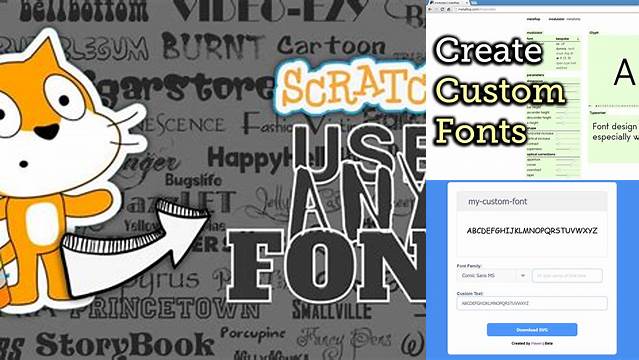
Custom Fonts In Scratch: A Complete Guide
So, you want to use custom fonts in Scratch, huh? Well, buckle up, because while Scratch doesn't officially support custom fonts in the traditional sense, there are some super cool workarounds to get your projects looking exactly how you want. Let's dive into the methods you can use to add that extra flair to your Scratch creations!
Why Use Custom Fonts in Scratch?
Before we get started, let's talk about why you might want to use custom fonts in the first place. The default font in Scratch is pretty basic, and while it's functional, it might not always fit the aesthetic you're going for. Custom fonts can add personality, style, and a unique touch to your projects. Whether you're creating a retro game, a modern animation, or an educational tool, the right font can make all the difference.
Custom fonts can significantly enhance the visual appeal of your Scratch projects. Imagine creating a space-themed game with a futuristic font or a fantasy story with an elegant, medieval-style typeface. The possibilities are endless! By using custom fonts, you can create a more immersive and engaging experience for your audience. Moreover, custom fonts can help you establish a distinct brand or style for your projects, making them instantly recognizable.
Moreover, using custom fonts allows for better alignment with the theme and mood of your project. For example, a horror game might benefit from a creepy, distorted font, while a children's story might use a playful, rounded typeface. Custom fonts can evoke specific emotions and enhance the overall narrative of your project. Furthermore, if you're creating projects for a specific audience, using custom fonts that resonate with their preferences can increase engagement and enjoyment.
Additionally, custom fonts can improve readability, especially when dealing with large amounts of text. While the default Scratch font is legible, it might not be the best choice for all situations. Custom fonts can offer better spacing, clearer letterforms, and improved contrast, making it easier for users to read and understand the text in your project. This is particularly important for educational games or interactive stories where clear communication is essential.
Method 1: Using Images of Text
One of the most common and straightforward ways to use custom fonts in Scratch is by creating images of your text. This method involves using an external image editor (like GIMP, Photoshop, or even online tools) to create images of the text you want to display in your chosen font. You then import these images as sprites in Scratch and use them in your project.
Step 1: Create Your Text Images
First, you'll need to create images of the text you want to use. Open your image editor of choice and create a new image with a transparent background. Type out the text you need using your desired font, size, and color. Save each piece of text as a separate image file (PNG is usually best for transparency).
Step 2: Import Images into Scratch
In your Scratch project, click on the "Choose a Sprite" button and select "Upload Sprite." Select the image files you created in the previous step. Each image will be imported as a separate sprite.
Step 3: Position and Use Your Text Sprites
Now, you can position your text sprites wherever you want on the stage. Use Scratch's scripting blocks to control when and how the text appears. You can use the "go to x: y:" block to position the text, the "show" and "hide" blocks to control visibility, and the "forever" or "repeat" blocks to create animations or dynamic text effects.
Pros:
- Full control over font style and appearance.
- Works with any font you can use in your image editor.
- Relatively simple to implement.
Cons:
- Can be time-consuming if you have a lot of text.
- Text is not editable within Scratch.
- Can increase project file size.
Method 2: Using the Pen Extension
Another clever way to use custom fonts in Scratch is by using the Pen extension. This method involves writing a script that draws the letters of your chosen font using the Pen tool. It's a bit more complex, but it allows for more dynamic and editable text within Scratch.
Step 1: Design Your Font
Before you start coding, you'll need to design your font. This involves breaking down each letter into a series of lines and curves that can be drawn using the Pen tool. You'll need to determine the coordinates of each point and the order in which they should be drawn.
Step 2: Create Pen Drawing Scripts
Write a script for each letter of your font that uses the Pen tool to draw the letter. This will involve using blocks like "pen down," "move steps," "turn degrees," and "go to x: y:" to draw the lines and curves of each letter.
Step 3: Create a Text-Drawing Script
Create a script that takes a string of text as input and calls the appropriate letter-drawing scripts for each character in the string. This script will need to handle spacing between letters and line breaks.
- Consider accessibility: Keep accessibility in mind when choosing custom fonts. Make sure the fonts are easy to read and don't cause eye strain or other issues for users with visual impairments.
While Scratch doesn't natively support custom fonts, these workarounds allow you to add personality and style to your projects. Whether you choose to use images of text, the Pen extension, or vector graphics, the key is to experiment and find the method that works best for you. So go ahead, get creative, and make your Scratch projects stand out with custom fonts!